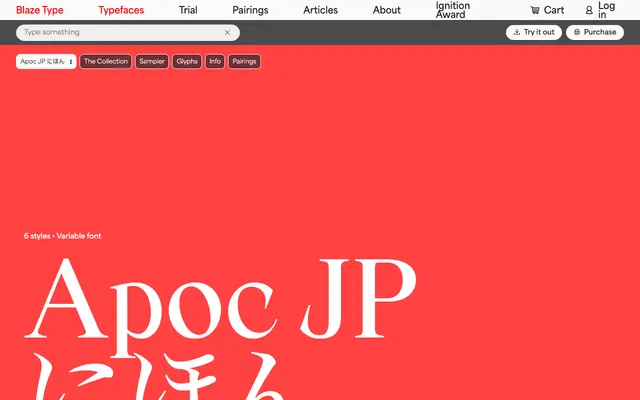
Apoc JP
Blaze Type · Matthieu Salvaggio, Caio Kondo · 2026
Apoc JP specimen from Blaze Type
A Latin and Japanese Kana extension of the Apoc family, adding Hiragana and Katakana support with both horizontal and vertical writing modes across six variable weights.
Originally released in 2018 and updated through 2022, the Apoc family is now extended by Caio Kondo's Kana drawings to cover Hiragana and Katakana alongside the existing Latin, Cyrillic and Greek. The sharp, angular character set runs from Hairline to Dark as a variable font, and the vertical writing support makes it usable in Japanese layout conventions. Suited to display work where a consistent aggressive register is wanted across scripts.
A sharp, high-contrast expressive display family designed explicitly for bold headline use, with a dramatic angular character set spanning Latin, Hiragana and Katakana.